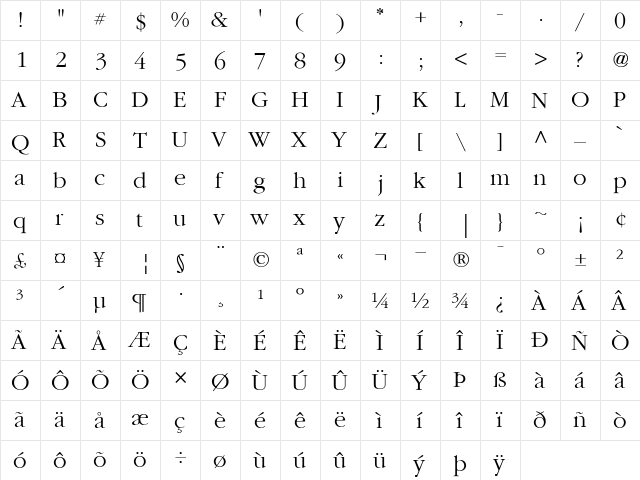
ITCGaramond-Light Light Font Preview
ITCGaramond-Light Light
Design Context for ITCGaramond-Light Typeface
ITCGaramond-Light is a composed and adaptable typeface that performs quietly and consistently across a wide range of design contexts. The delicate stroke weight brings airiness and refinement to layouts.